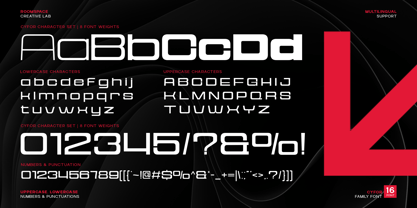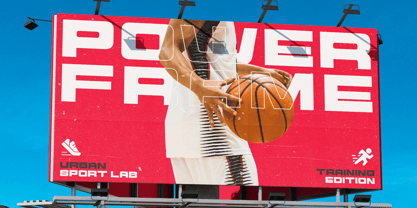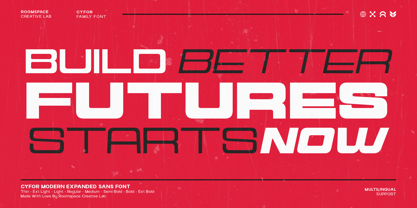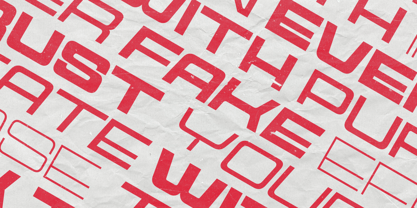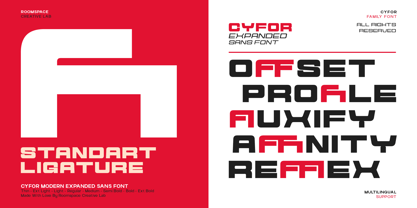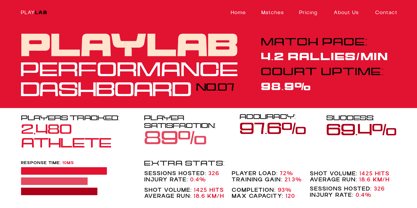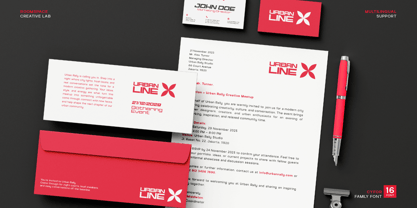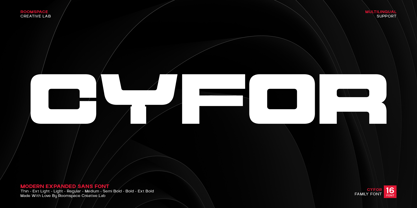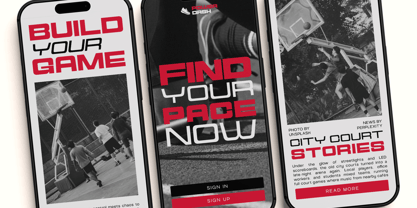
Cyfor
Die Schriftfamilie Cyfor wurde von Bakhrudin Ja'far entworfen und von Jafar07 veröffentlicht. Cyfor enthält 8 Stile und Familienpaketoptionen. Mehr über diese Familie
A futuristic expanded sans family designed for bold digital branding. Cyfor is a modern expanded sans-serif font family featuring 16 weights, crafted for futuristic branding, editorial design, and digital interfaces. Its wide geometric construction creates a strong visual foundation suitable for high-impact headlines, esports branding, tech packaging, and UI design. Engineered with precise kerning and clean expanded proportions, Cyfor performs consistently across print and digital media, maintaining clarity and boldness at all sizes. Specifications Weights: Thin – Extra Bold (16 styles) Language Support: Western + Central Europe Features: Multilingual support, professional kerning, expanded geometry Ideal For: Branding, headlines, posters, UI/UX, digital identity, sci-fi visuals
Designer: Bakhrudin Ja'far
A little from my personal design & background: My name is Bakhrudin Ja'far, I live in Malang, Indonesia. I am currently completing my degree in visual communication design and I have worked as a lettering artist and logo designer for many years. I finally started my studio called roocspace creative lab (jafar07) Studio a few months ago and with my team made my letters into typography.